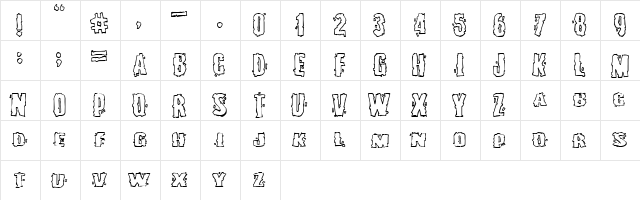
Burlesque Regular
Design Context for Burlesque Typeface
Burlesque is a composed and adaptable typeface that performs quietly and consistently across a wide range of design contexts.
Pro Tip: Pair Burlesque with a font of contrasting weight or personality to build a more expressive typographic hierarchy.